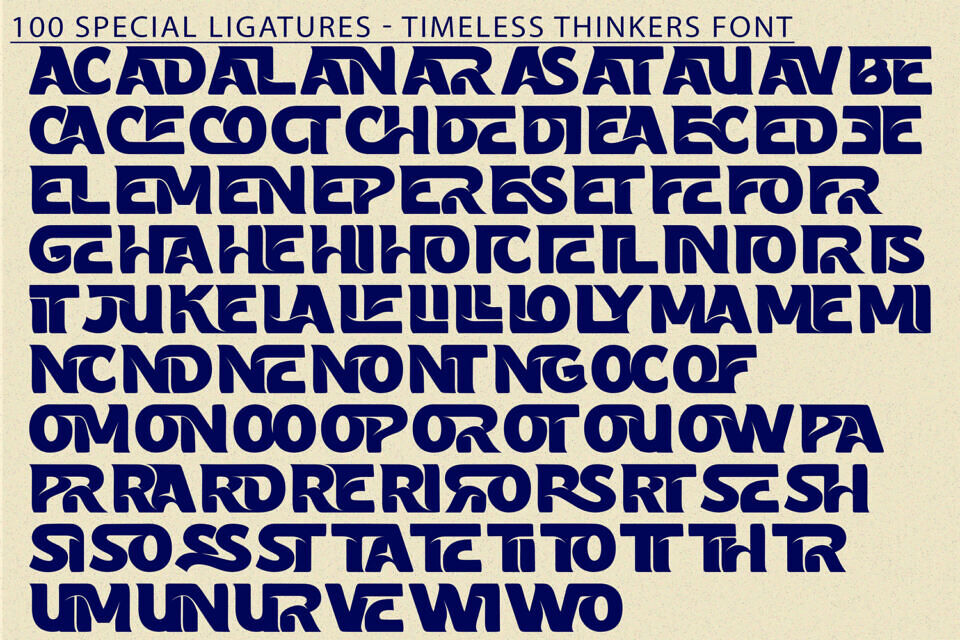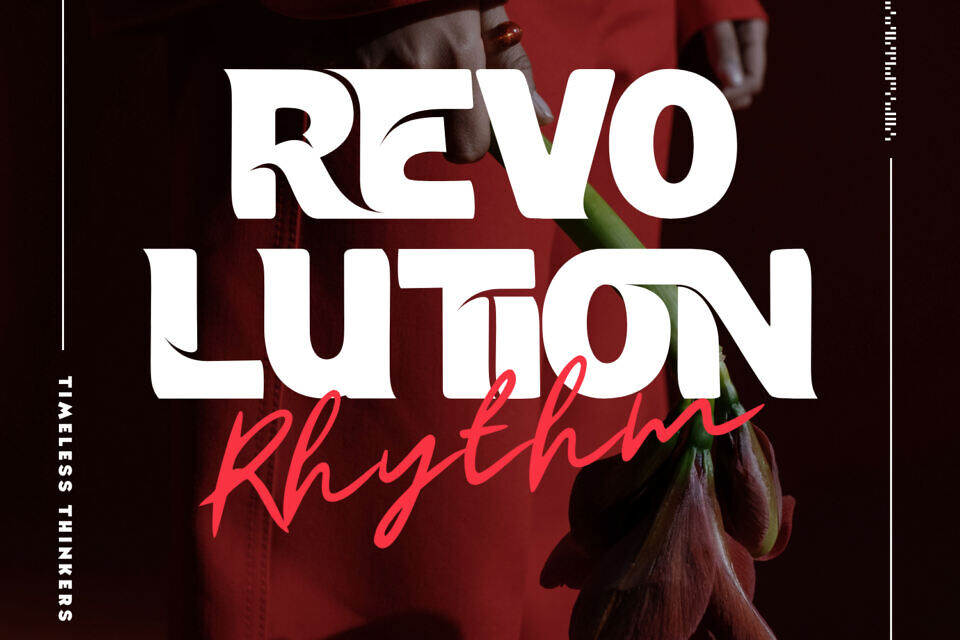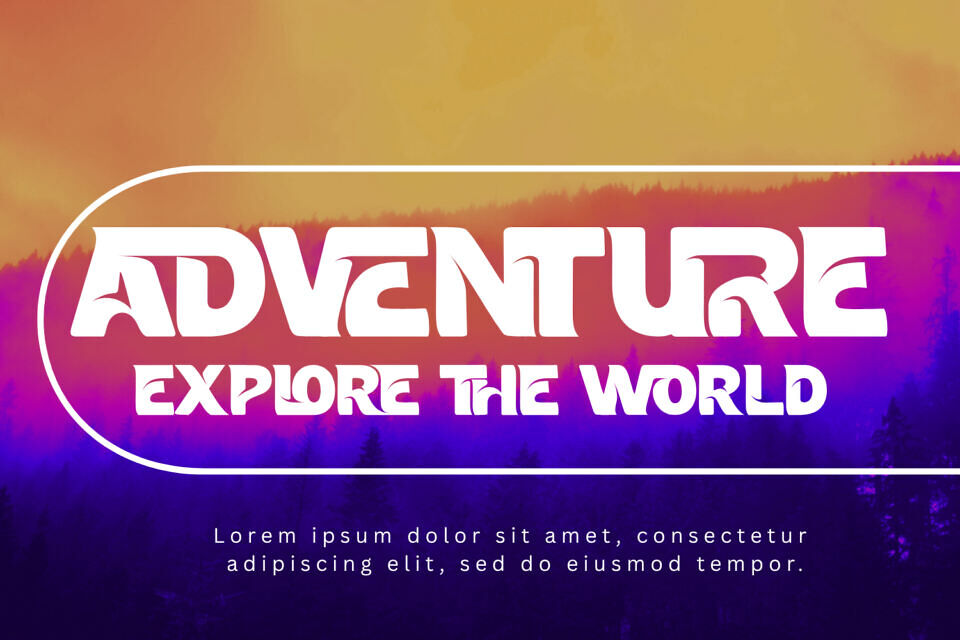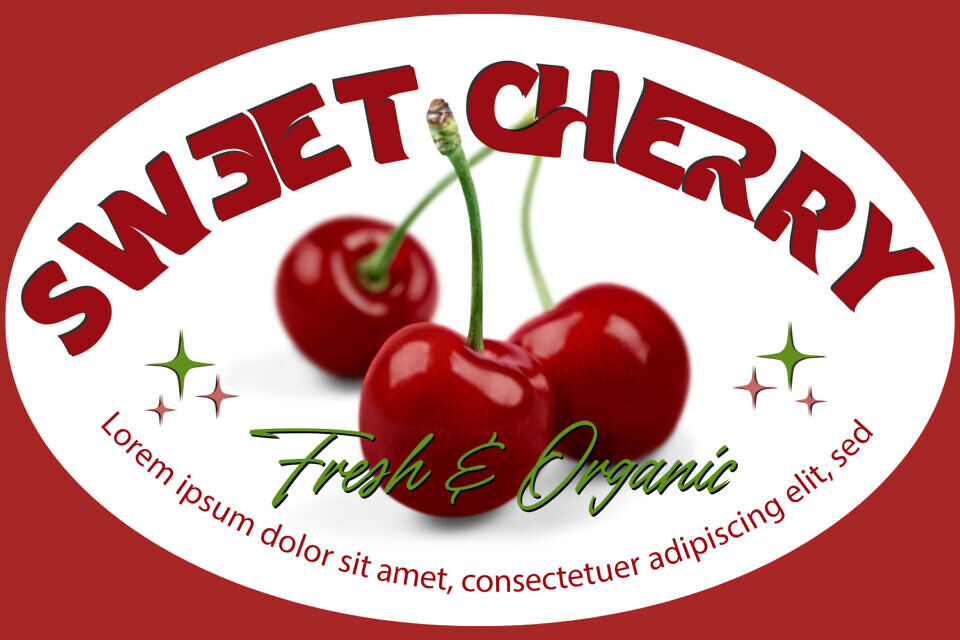
Timeless Thinkers Font
Timeless Thinkers Font is a bold groovy and nostalgic retro display font that dances between funk and freedom. Inspired by the typography of the ’60s and ’70s, this typeface captures the spirit of a timeless groove with thick letterforms, flowing curves, and sharp inner cuts that radiate energy.
Whether you’re working on music posters, fashion branding, vintage packaging, or bold headlines, Timeless Thinkers adds a funky twist and unforgettable vibe to your design.